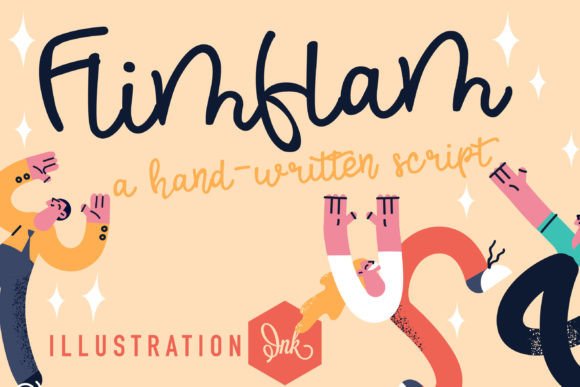
Flimflam Font
Step into the realm of creativity and charm with our newest script font, "Flimflam"! Designed to bring joy and personality to your digital creations, each letter in this font family exudes a playful and whimsical vibe. Embrace the magic of handwritten notes with its curvy lines and bouncy accents, making it a perfect fit for personalized greeting cards, warm invitations, or heartfelt letters.
Escape the ordinary and elevate your designs with "Flimflam". This font is your perfect companion for crafting designs that demand attention, whether it's a captivating poster for a local theater production or an eye-catching flyer for a community event. Its unique style adds a touch of lightheartedness and cheer to any project, leaving a lasting impression on your audience.
Immerse yourself in a world of endless possibilities with "Flimflam". Its versatility knows no bounds, adapting seamlessly to a myriad of creative endeavors. Transform dull presentations into engaging visual experiences, or breathe life into social media posts that capture hearts and minds. Unleash your inner artist and explore the limitless potential of this enchanting script font.